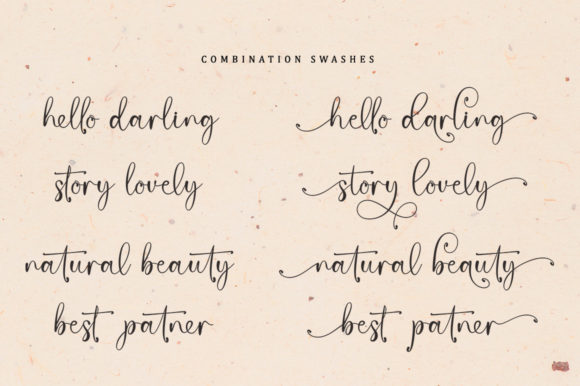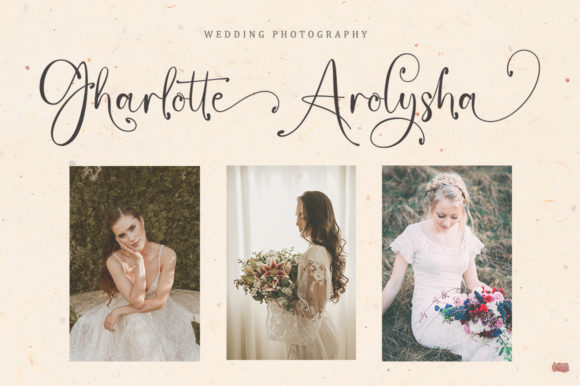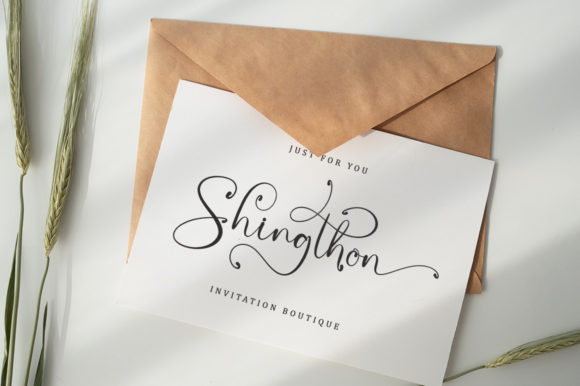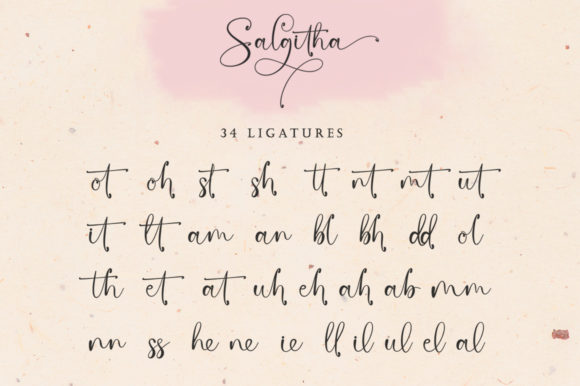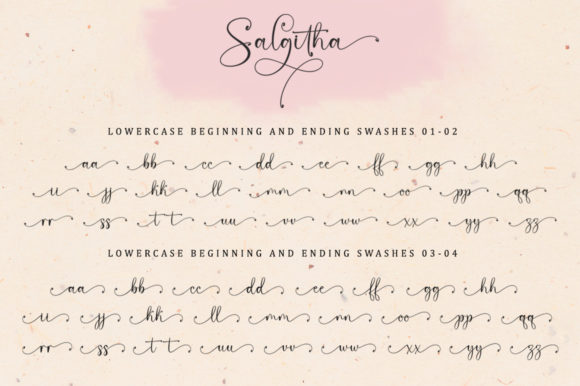
Salgitha is one of the modern luxury script fonts that comes with a very beautiful character change, a kind of decorative script, or a kind of classic signature style with a modern touch, designed with high detail to bring a luxurious style.
Salgitha is attractive because the typeface is pleasing to the eye, clean, feminine, sensual, glamorous, simple, and very easy to read, due to the many luxurious letter relationships.